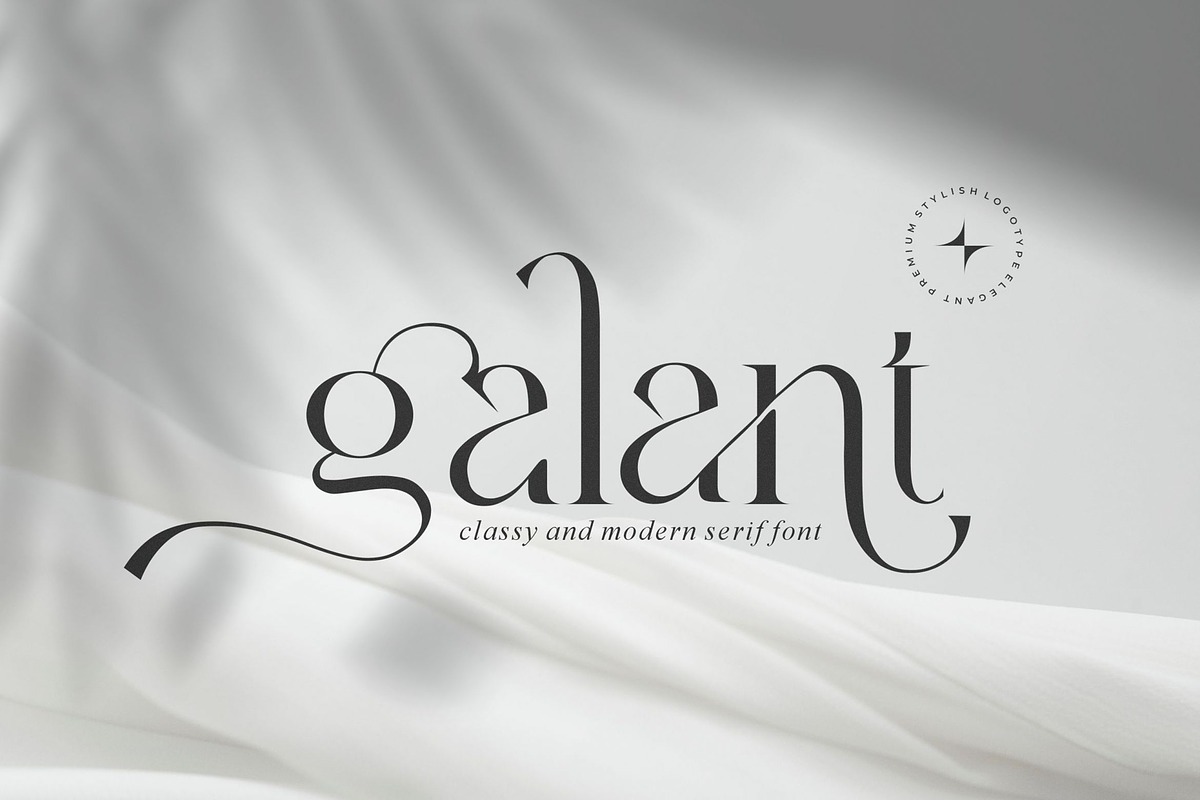
Galant – Elegant Serif Font
Galant – Elegant Serif Font is a clean and thoughtfully built typeface that works seamlessly for both professional branding and everyday creative uses. Galant Serif is a modern and minimalist font type for all branding and logo designs. This modern and minimalist Serif font has a beautiful character. This font is suitable for invitation card designs, cool logos, movie titles, movie names, business cards, book titles, brand names, and various other designs. Galant Stencil Serif is a smooth serif font that exudes sophistication and the moment. Its stylish ligatures make this font a perfect partner for any project.